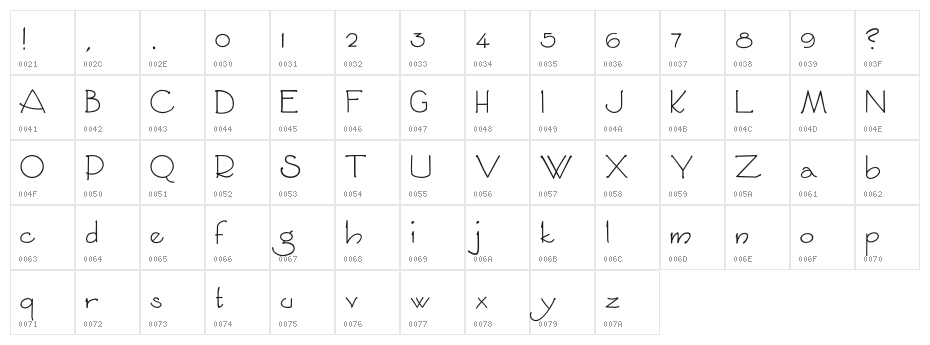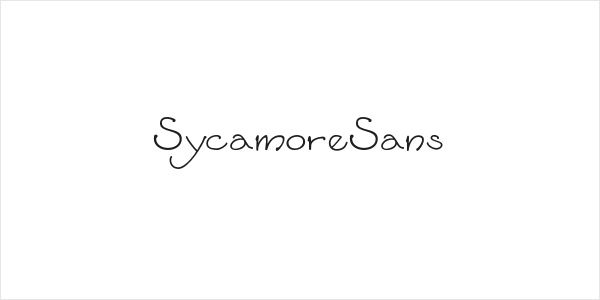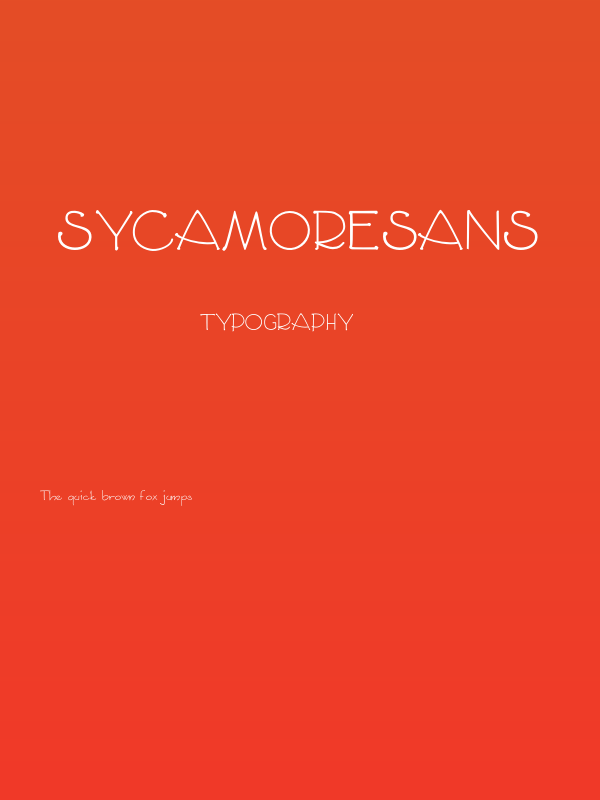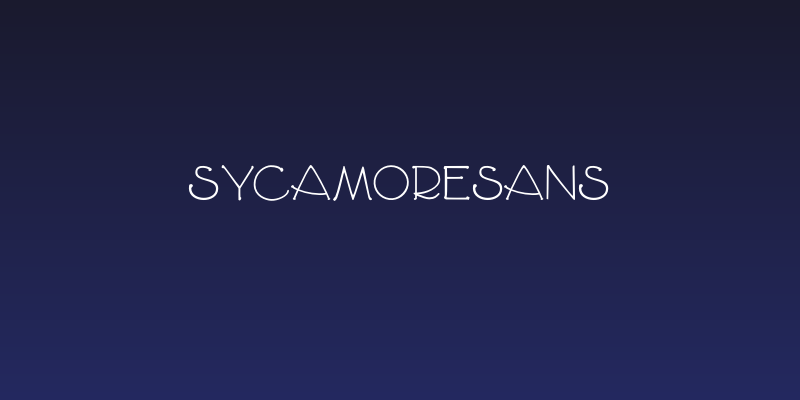
SycamoreSans Font
SycamoreSans Description
This font features a playful and whimsical design, characterized by its unique and slightly irregular strokes. The uppercase letters are tall and slender, with a slight curve that adds a touch of elegance. The lowercase letters maintain a consistent style, with rounded edges and a flowing script-like appearance. The numerals are clear and easy to read, matching the overall aesthetic of the font. Special characters are creatively designed, adding to the font's charm. This font is perfect for projects that require a fun and approachable feel.
| Proposed Projects | Ideal for children's books, greeting cards, playful branding, and creative posters. |